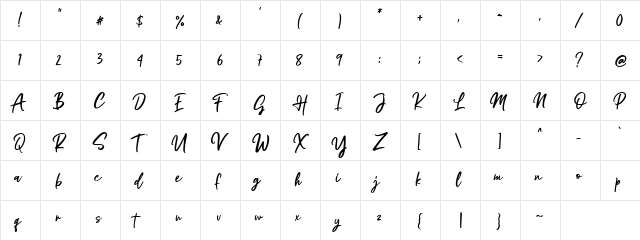
Justtafe Regular
| Foundry | Weape Studio |
| Designer | Wahyu Andi Prasetiyo |
Design Context for Justtafe Typeface
Justtafe is a composed and adaptable typeface that performs quietly and consistently across a wide range of design contexts.